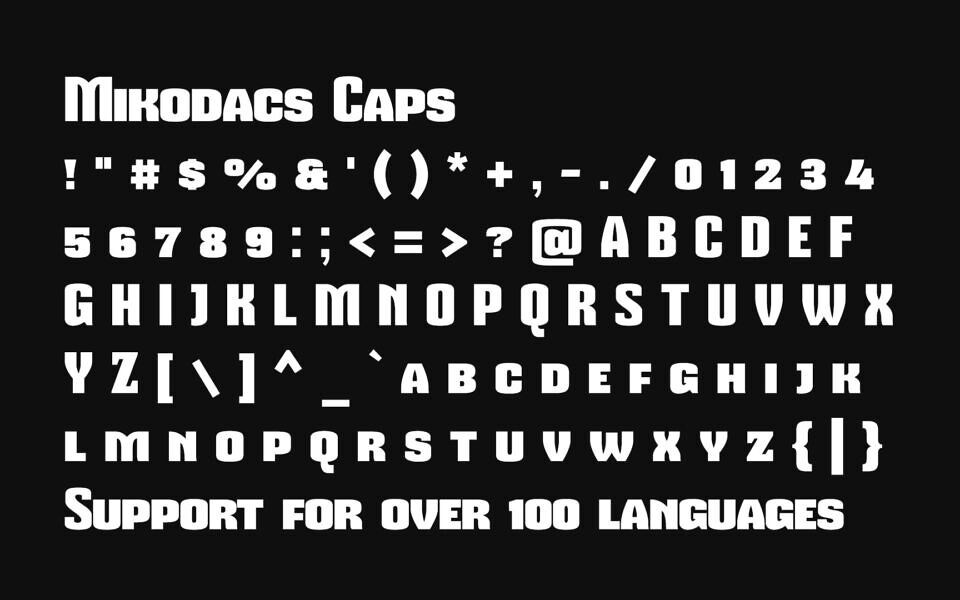
Mikodacs Font
Mikodacs is a bold, retro-modern display font from Gluk Fonts. Built on pure geometry and perfect balance, its heavy, blocky letterforms feature sharp, stylized cuts that give it a distinct urban edge.
The typeface includes two distinct variants: Mikodacs Regular with lowercase support and Mikodacs Caps. Offering extensive versatility, the font includes numbers, symbols, and built-in support for over 100 languages.